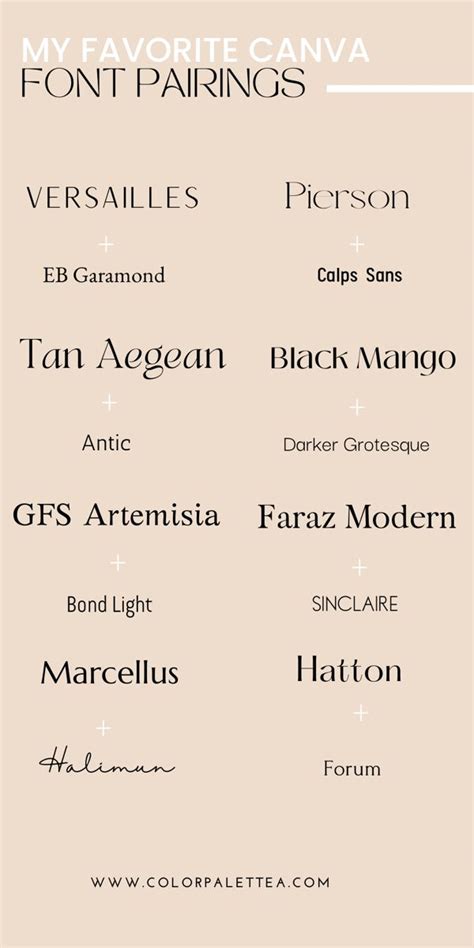
24 of the Best Canva Font Pairings to Uplevel Your Brand — Firther
Font Pairing Canva. Pair a regular and bold font to create a subtle contrast. Balance a script font with a bold font.
Pair a regular and bold font to create a subtle contrast. Balance a script font with a bold font. Pair a tall and short.